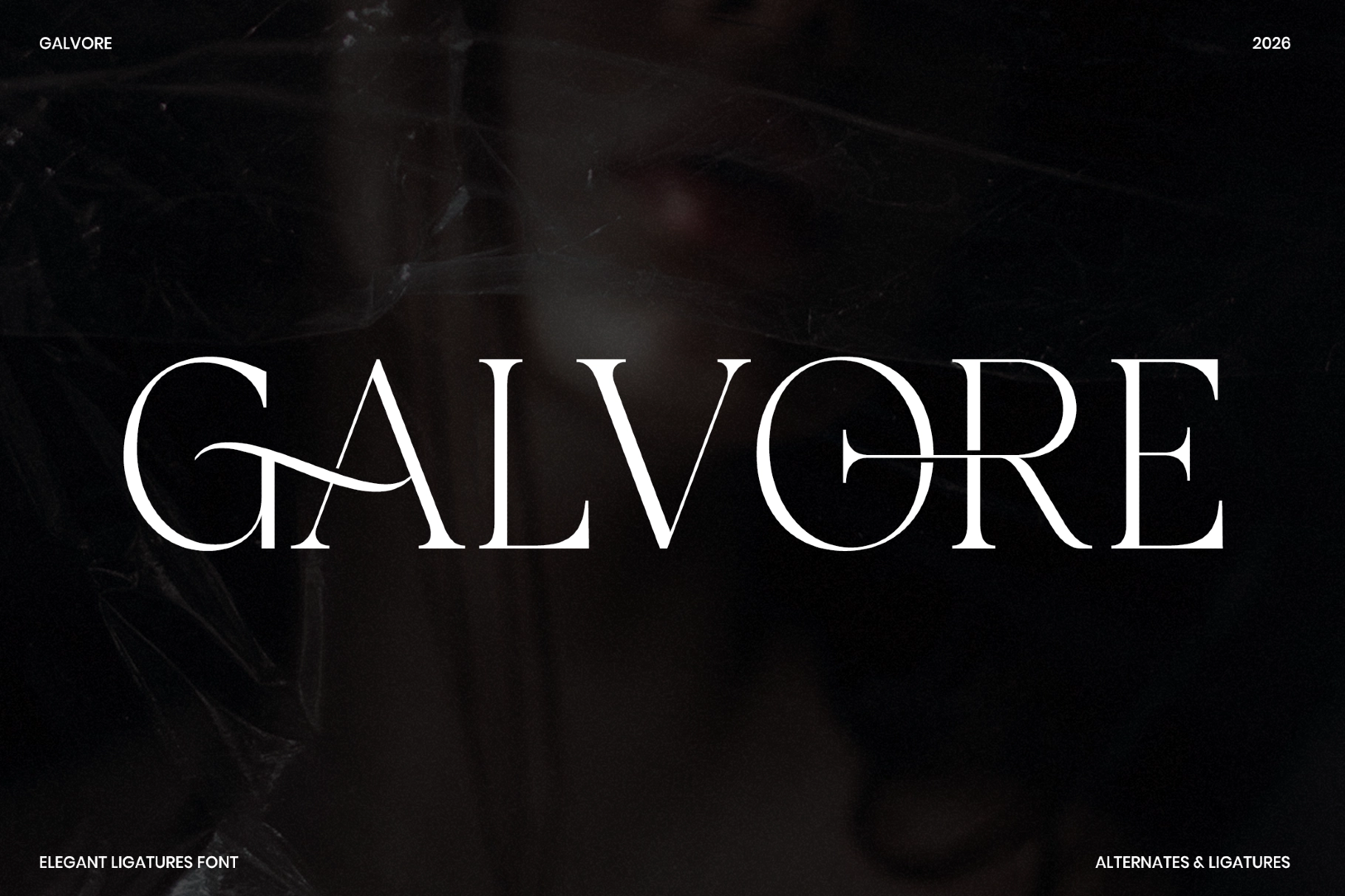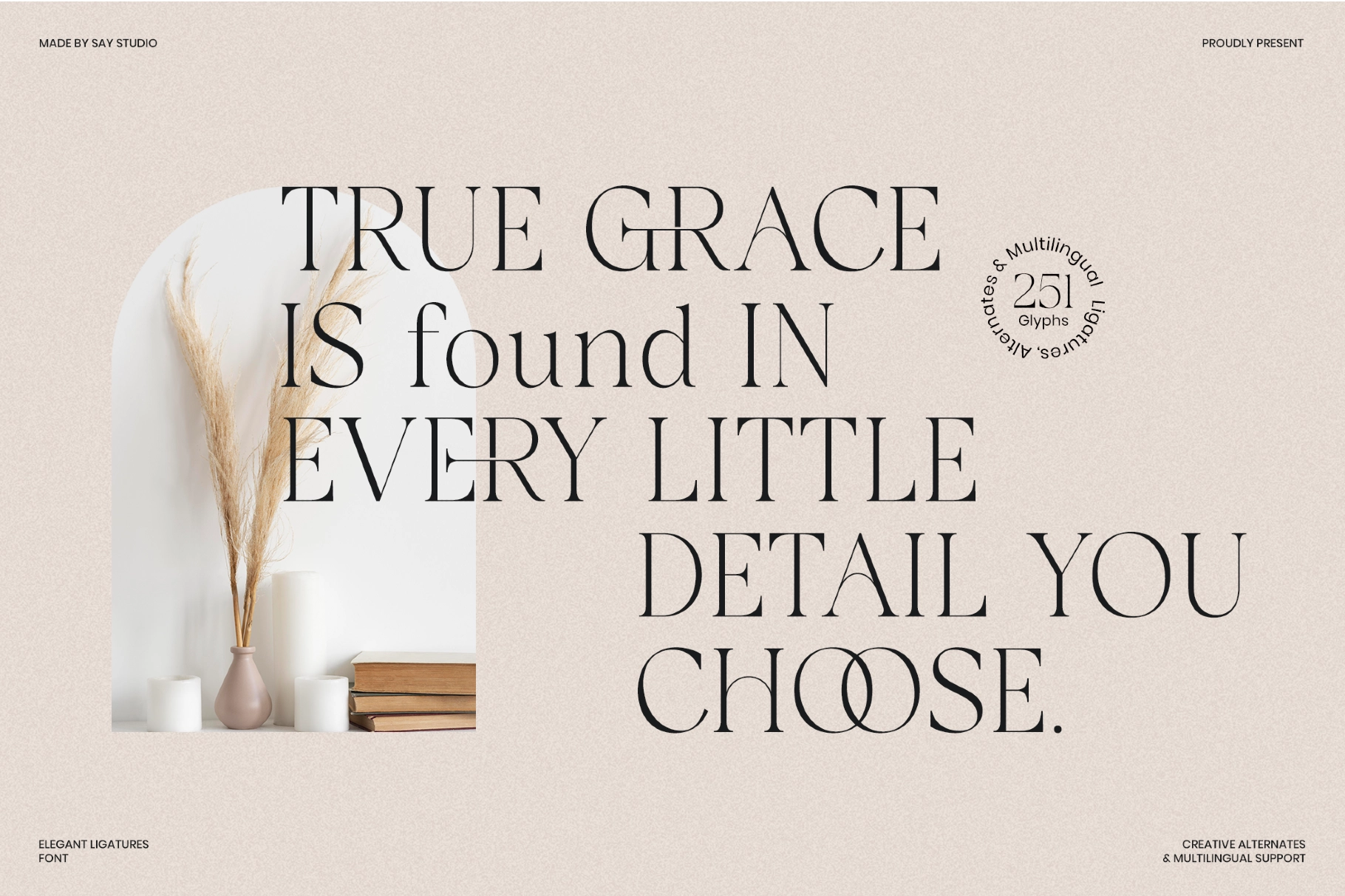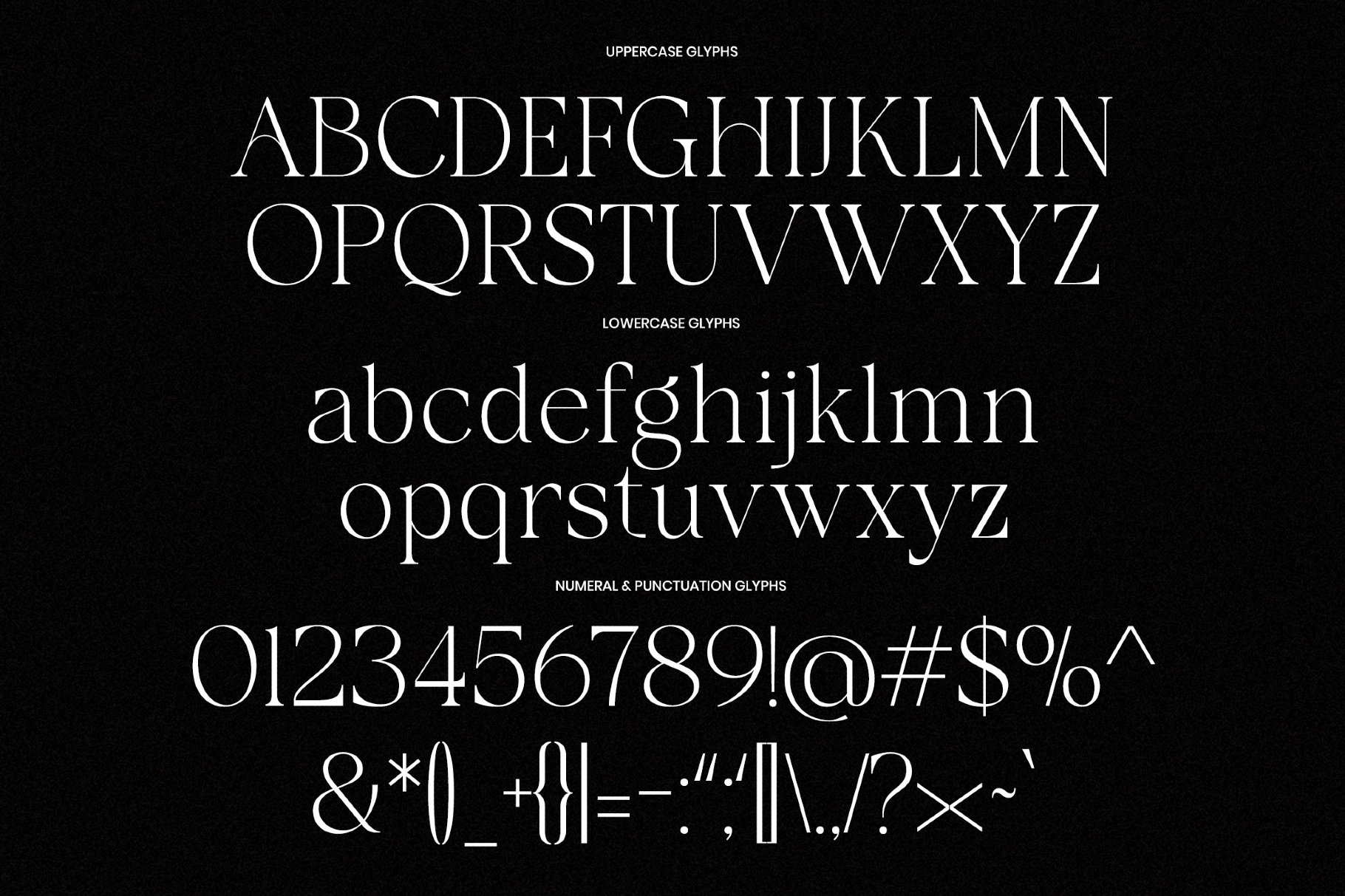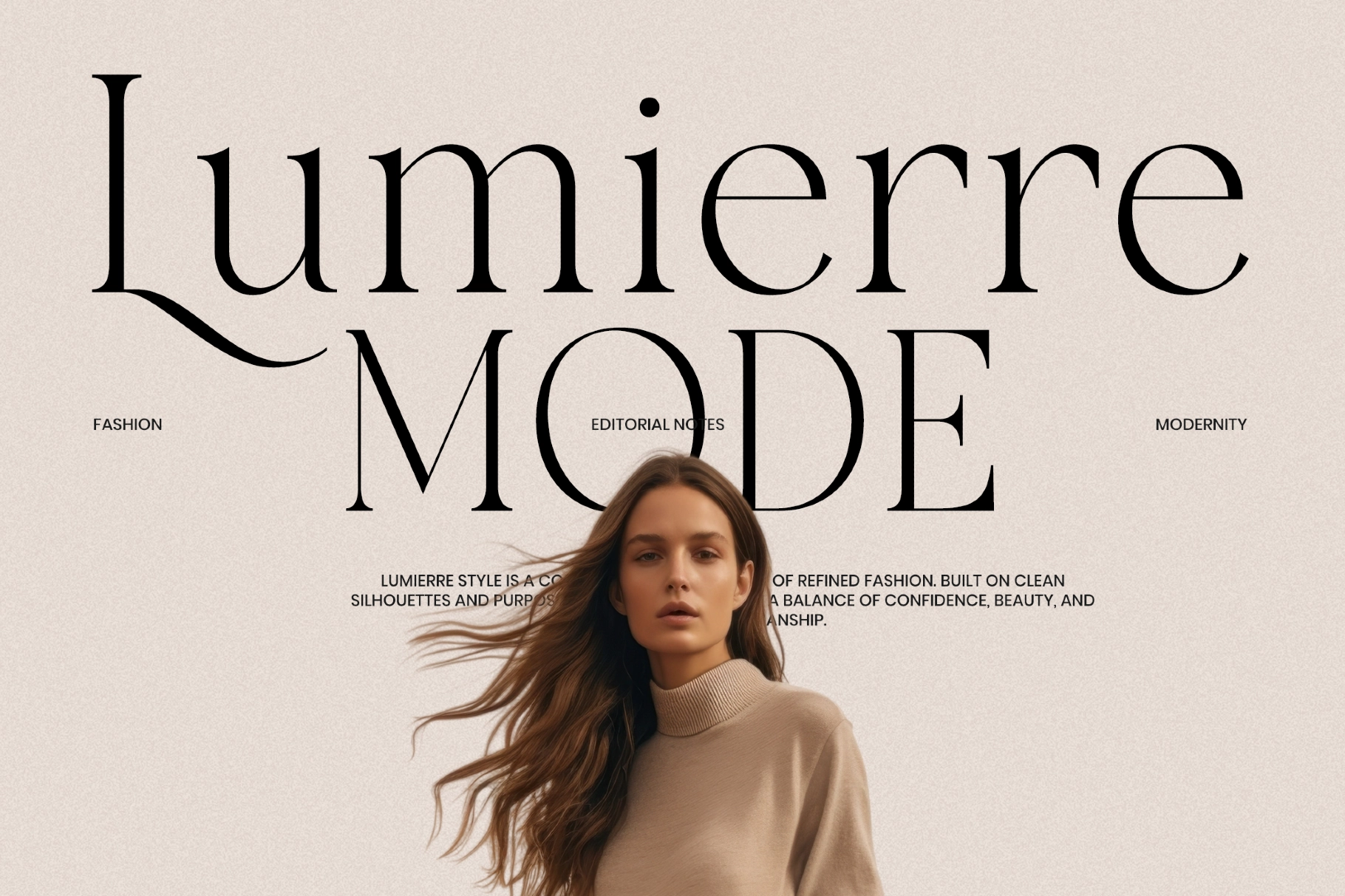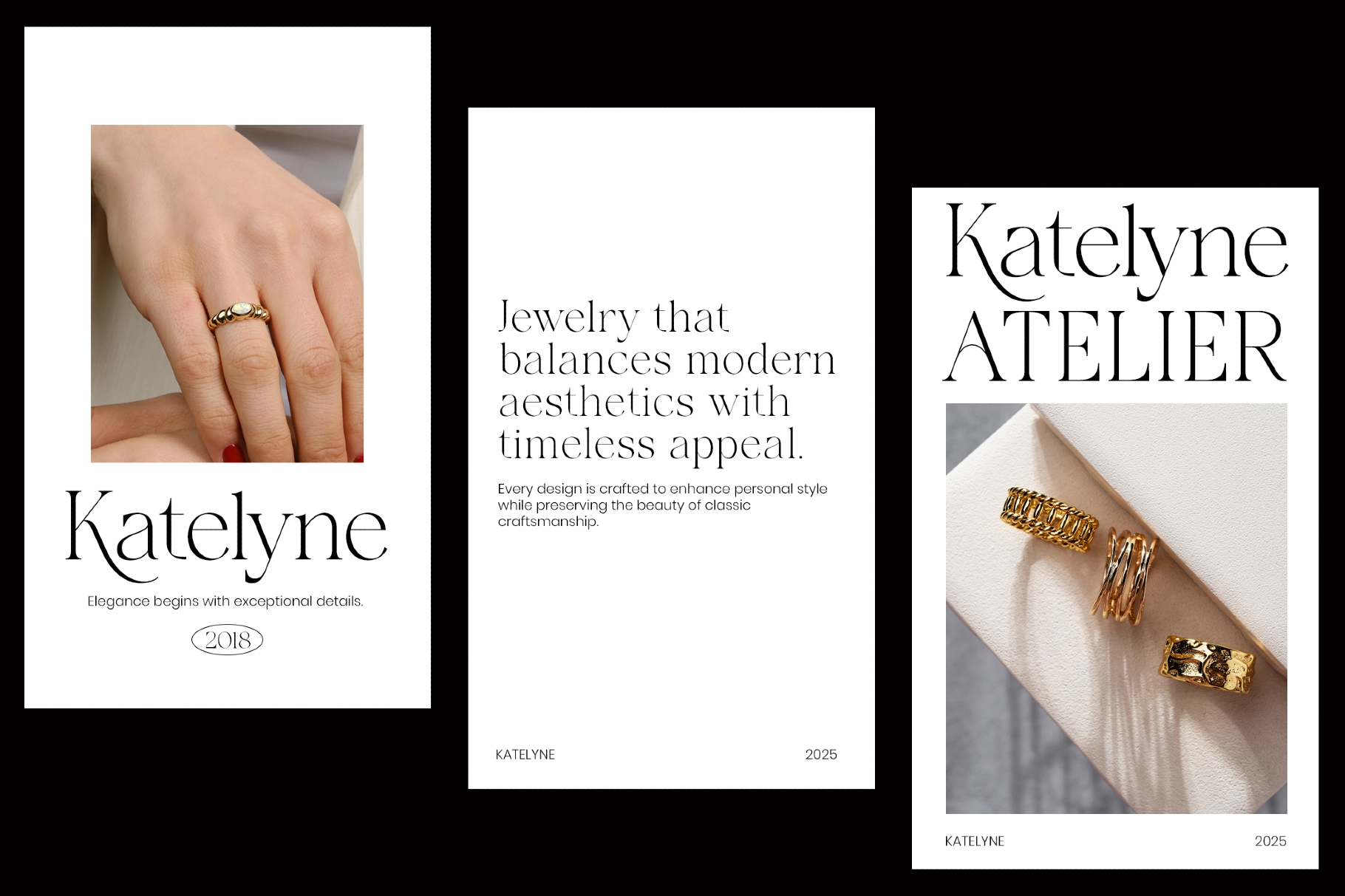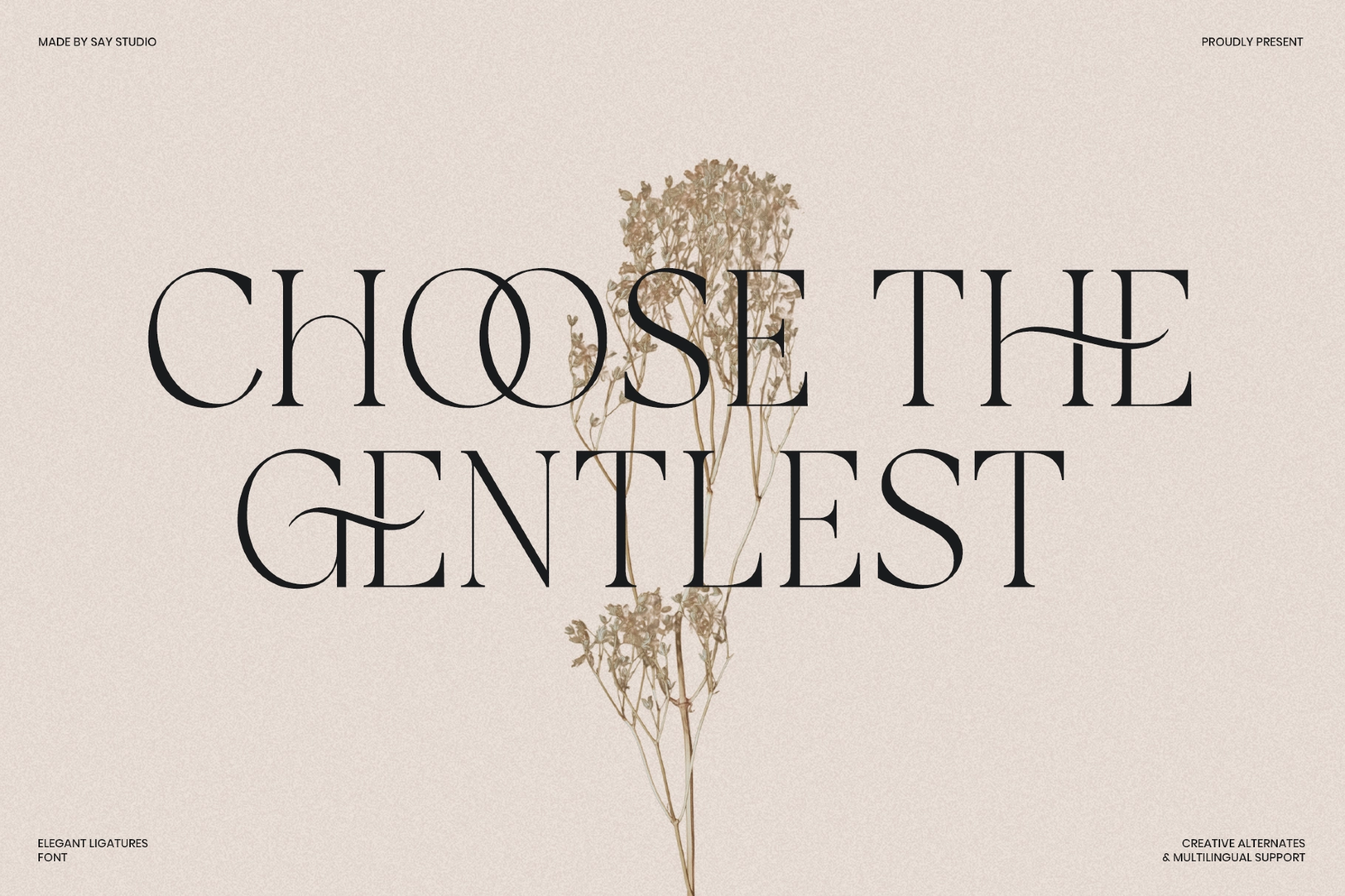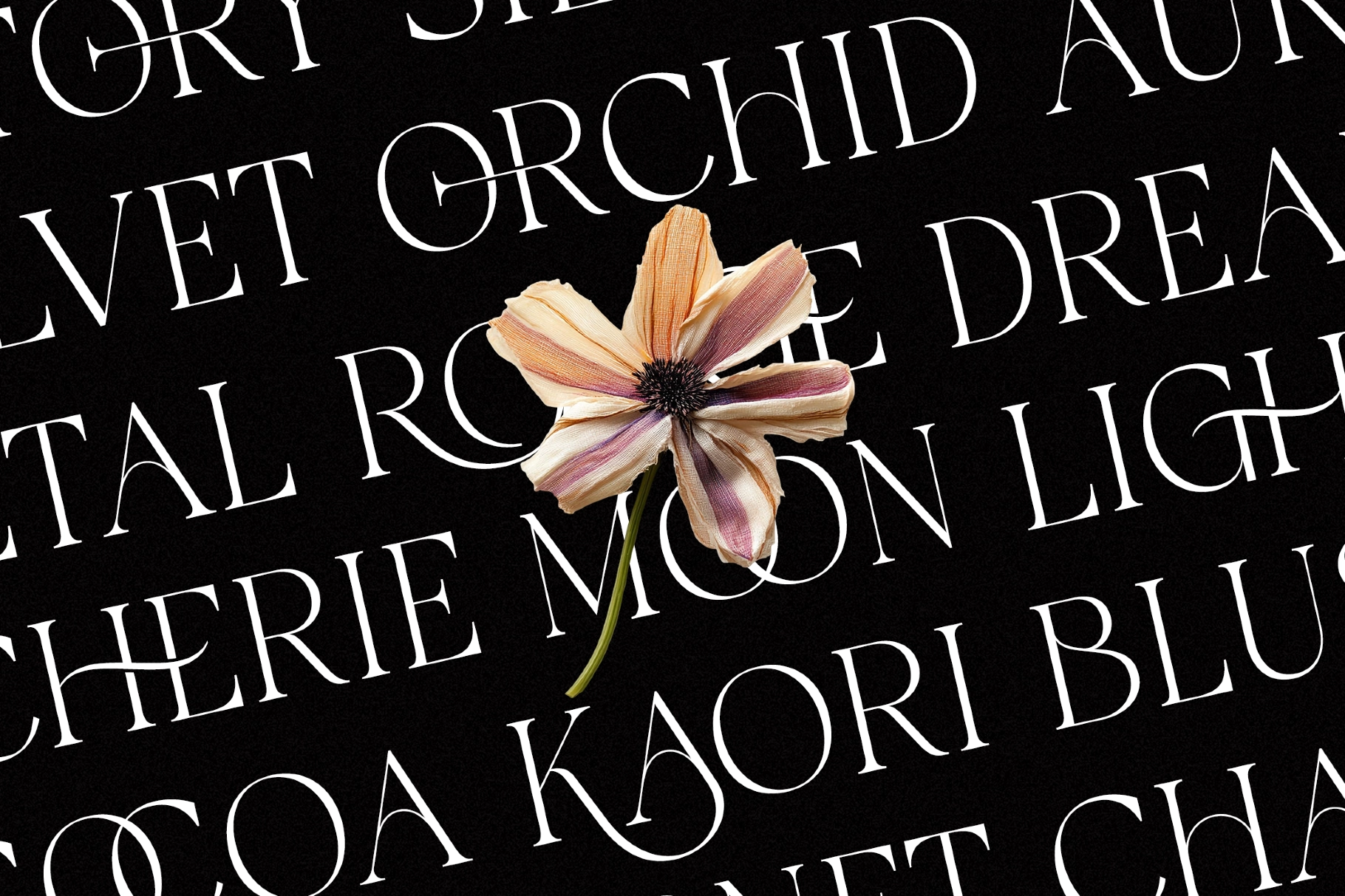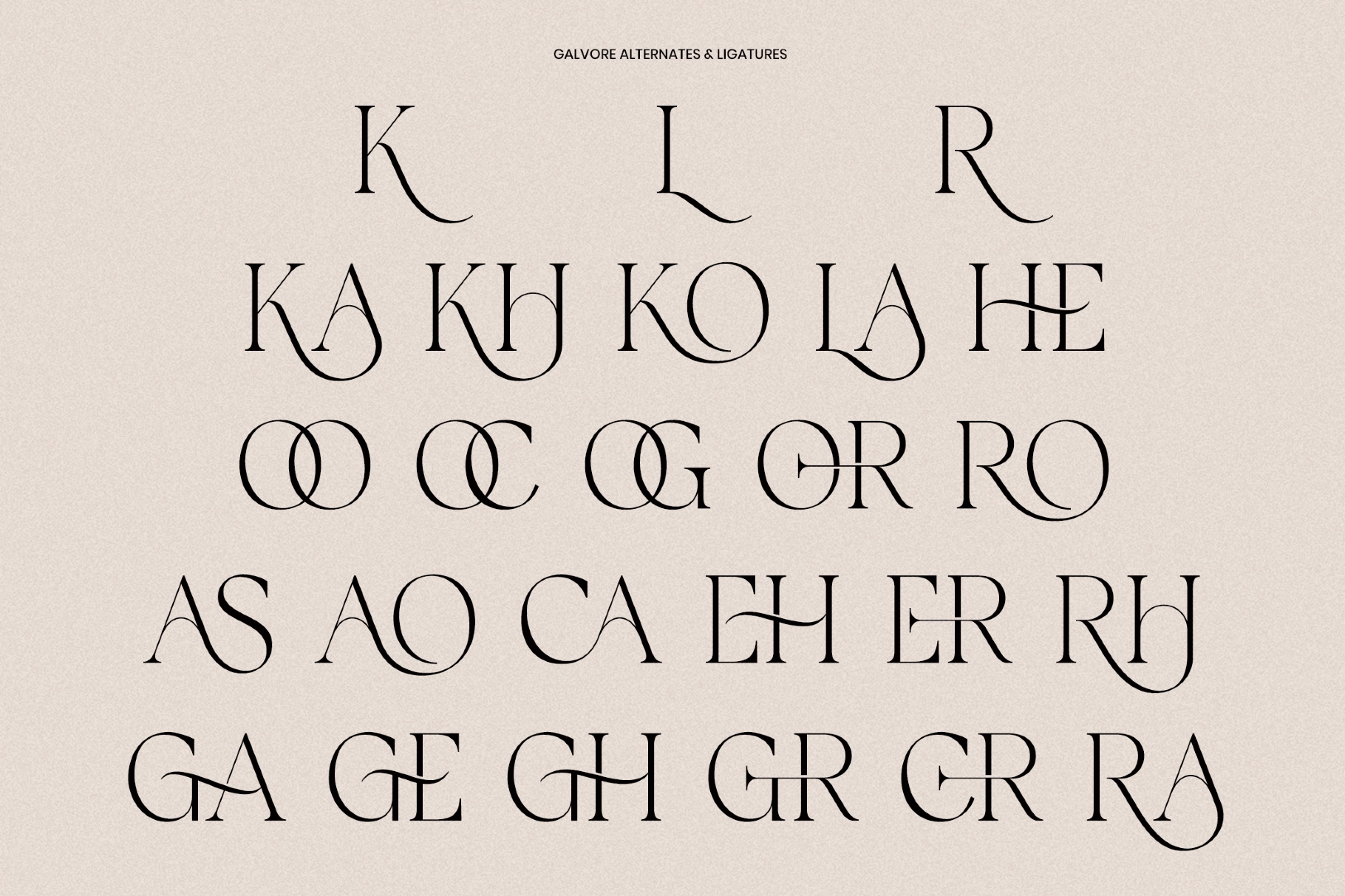
Galvore - Luxury Ligature Serif Font
A luxury serif with high contrast strokes, slender proportions, and expressive ligatures made for polished display typography. Its sharp terminals, sweeping alternates, and refined spacing create a poised editorial look with enough drama for headlines, logos, and premium packaging.
Use it for fashion branding, beauty logos, jewelry labels, magazine covers, wedding stationery, perfume packaging, boutique identities, social media headers, product campaigns, invitations, art prints, and high-end advertising. Galvore also includes alternates and ligatures that help wordmarks look custom without forcing every letter to audition for the main character.
• Stylistic ligatures